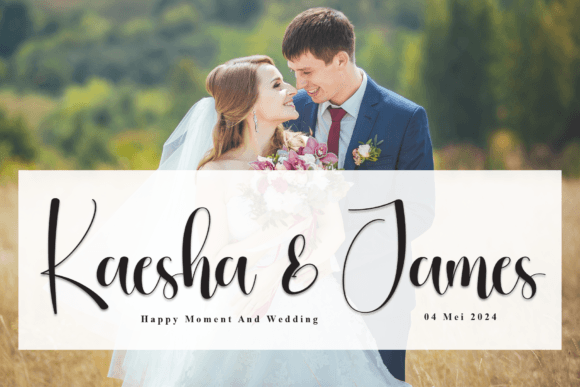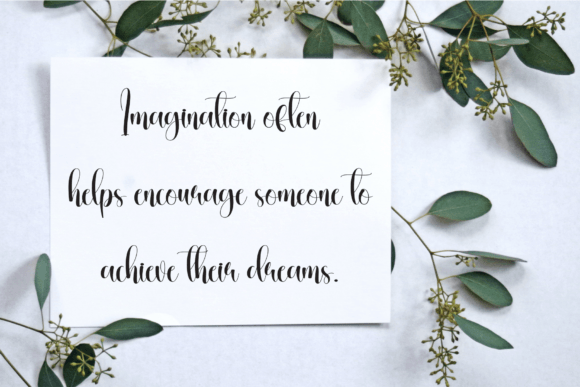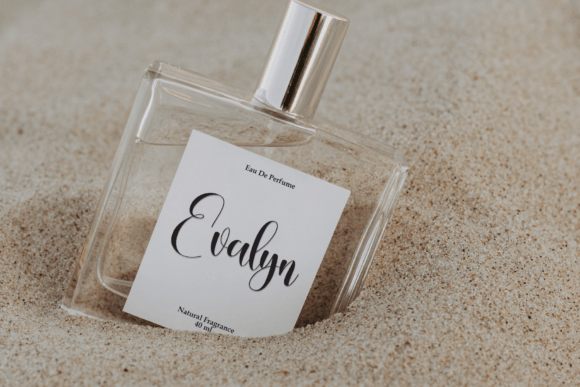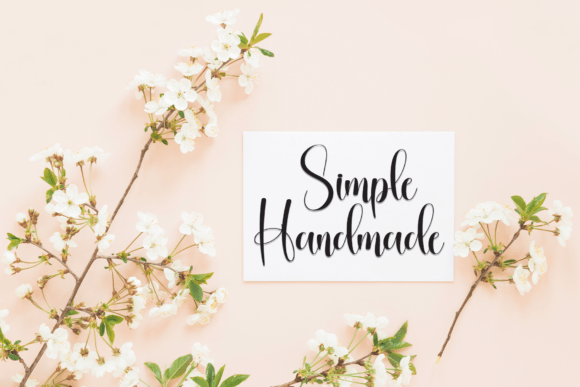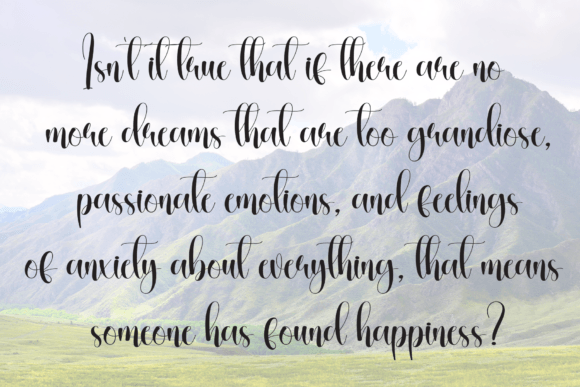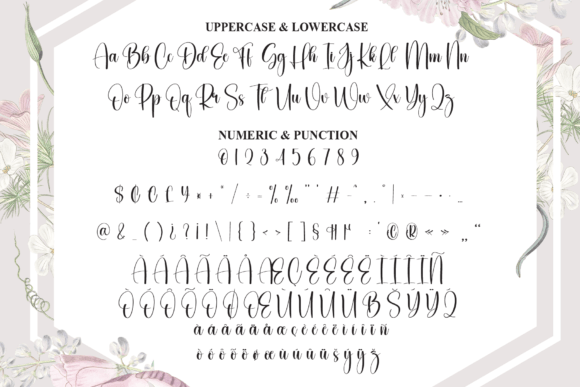
Introducing Greating Font: Elevate Your Designs with Elegance and Sophistication
Are you looking for a font that can add a touch of elegance and sophistication to your designs? Look no further than Greating Font, a stylish and incredibly elegant script font that is sure to take your creations to the next level. With its beautiful, flowing lines and classic charm, Greating Font is the perfect choice for designers and crafters who want to add a handwritten touch to their work.
What Makes Greating Font So Special?
Greating Font is a versatile and highly adaptable font that can be used in a wide range of design applications. Whether you’re creating wedding invitations, thank you cards, quotes, greeting cards, logos, business cards, or any other type of design that needs a personal touch, Greating Font is the perfect choice. Its elegant and refined appearance makes it ideal for formal events and special occasions, while its playful and whimsical feel also makes it suitable for more casual and creative projects.
Key Features of Greating Font
- Elegant and Refined Appearance: Greating Font features beautiful, flowing lines and classic charm that give it an elegant and refined appearance.
- Highly Adaptable: Greating Font can be used in a wide range of design applications, from formal events to casual projects.
- Handwritten Touch: Greating Font adds a personal and handwritten touch to your designs, making them stand out from the crowd.
- Easy to Read: Despite its elegant appearance, Greating Font is easy to read and understand, making it perfect for use in body text and captions.
Greating Font is a must-have for designers and crafters who want to add a touch of elegance and sophistication to their work. Whether you’re creating digital designs or handmade crafts, Greating Font is the perfect choice for anyone who wants to add a personal and handwritten touch to their creations. With Greating Font, you can:
- Create stunning wedding invitations and stationery
- Design beautiful greeting cards and thank you cards
- Add a touch of elegance to your logos and business cards
- Create inspiring and motivational quotes
- Elevate your digital designs with a personal and handwritten touch
Tips for Using Greating Font
To get the most out of Greating Font, here are a few tips to keep in mind:
- Use it sparingly: Greating Font is a statement font, so use it sparingly to add emphasis and elegance to your designs.
- Pair it with a sans-serif font: Pair Greating Font with a sans-serif font to create a beautiful contrast and add visual interest to your designs.
- Experiment with different colors: Greating Font looks stunning in a range of colors, from classic black and white to bold and bright hues.
- Pay attention to spacing: Make sure to pay attention to spacing and kerning to ensure that your text is easy to read and visually appealing.
Greating Font is a stylish and incredibly elegant script font that is sure to elevate your designs with elegance and sophistication. With its beautiful, flowing lines and classic charm, Greating Font is the perfect choice for designers and crafters who want to add a handwritten touch to their work. Whether you’re creating wedding invitations, greeting cards, logos, or any other type of design, Greating Font is a must-have font that will take your creations to the next level.